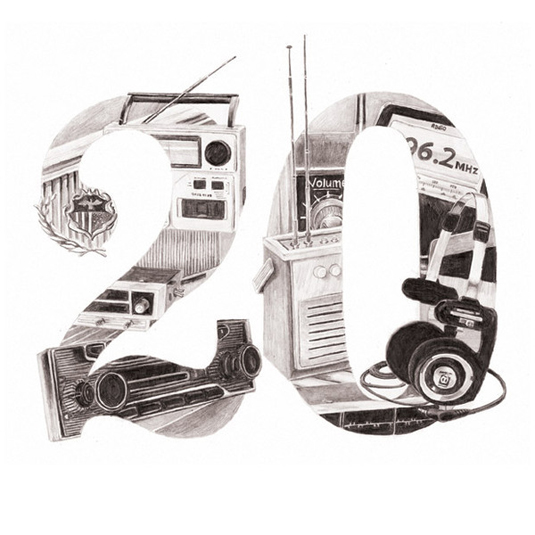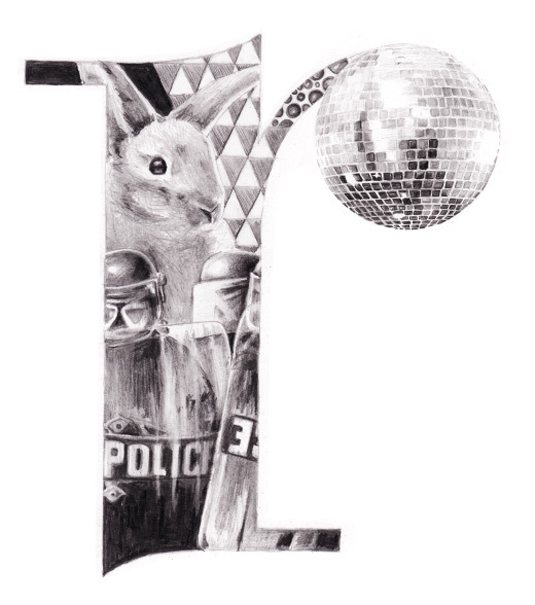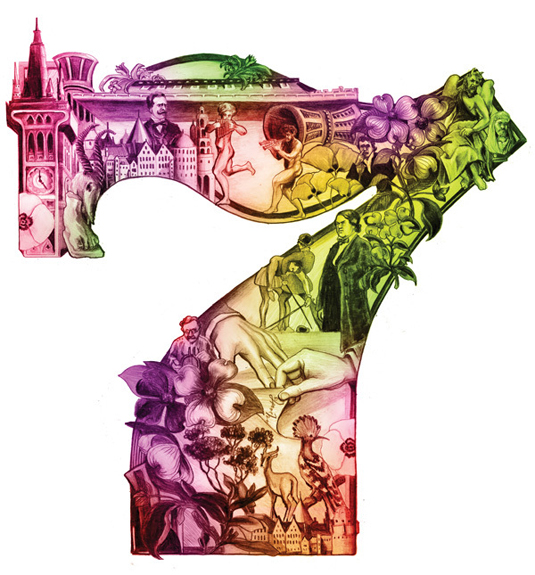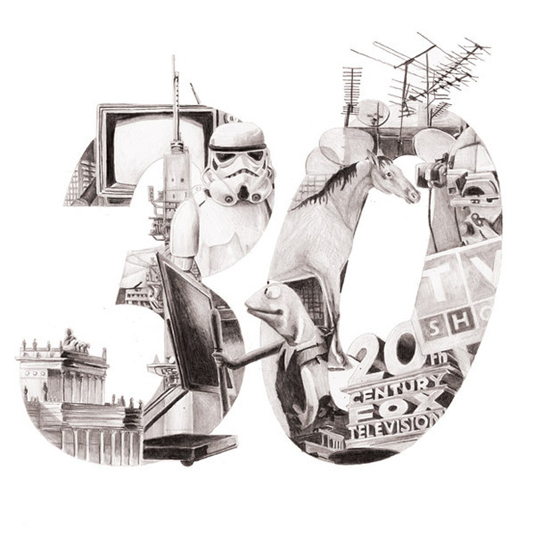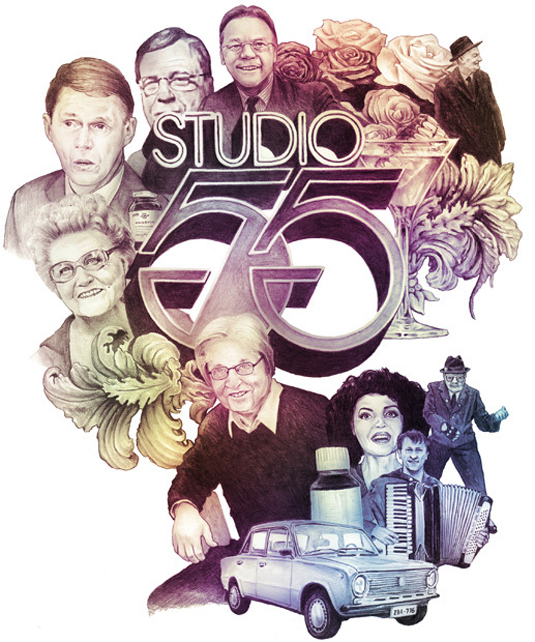
Illustrated typography puts font in the frame
Finnish designer Emil Bertell has created these various illustrations over a number of years. Check out 'illustrated letters' here.
Typography can take on many forms - from graffiti font to retro typography, the art of the letter is one that keeps on giving. Here, illustration inspiration takes centre stage, as Finnish designer Emil Bertell uses influences from movies and more for this illustrative font.
An illustrator living in Helsinki, Finland, Emil created these eye-catching designs over a number of years for an 'illustrated letters' series. The results are truly inspiring, with the designer taking influence from old Hollywood movies, animals and boomboxes as well as experimenting with colour and form.
The character portraits are seriously cool and the use of a disco ball as part of a letter had us dancing with delight. Check out the examples below for an illustrative inspiration fix.